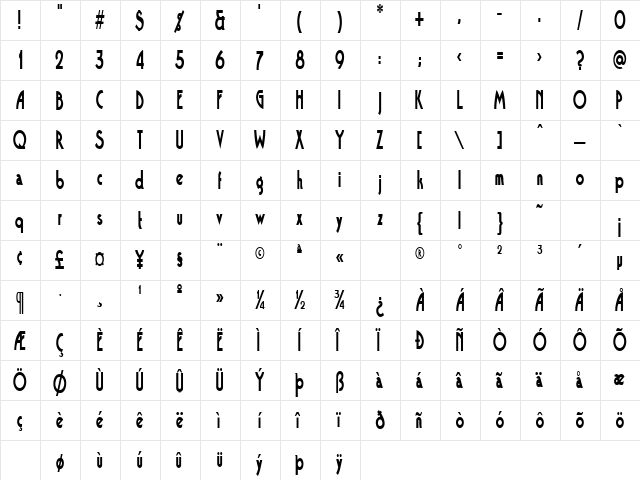
BandstandCondensed Regular Font Preview
BandstandCondensed Regular
BandstandCondensed Regular Font Details
Design Context for BandstandCondensed Typeface
BandstandCondensed offers clean, dependable letterforms without strong stylistic allegiance, making it a practical choice for designers who need flexibility. The condensed width makes it efficient for tight spaces without sacrificing legibility.